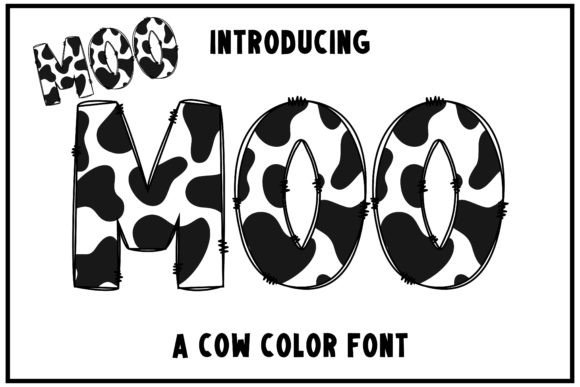
Introducing Moo Moo Font, a colorful font family that will captivate your creative senses! Created by the amazing designers at MDF, this font is perfect for addressing numbers in a fun and playful way. With its cute and authentic feel, Moo Moo Font is sure to bring a smile to anyone's face.
Looking to create gorgeous invitations? This font is perfect for that! Want to add a touch of beauty to your stationary art? Look no further than Moo Moo Font! Need to create an eye-catching social media post or a lovely greeting card? Moo Moo Font has got you covered.
But what really sets Moo Moo Font apart is its versatility. It's not just a font for address numbers - it's a font that can be used for so much more. Its fun and playful nature will make any project stand out, and its bold and colorful design will add a touch of personality to any text.
So why settle for a boring font when you can have Moo Moo Font? With its authentic feel, cute design, and endless possibilities, this font is the perfect addition to any creative project. Download it today and let your imagination run wild!